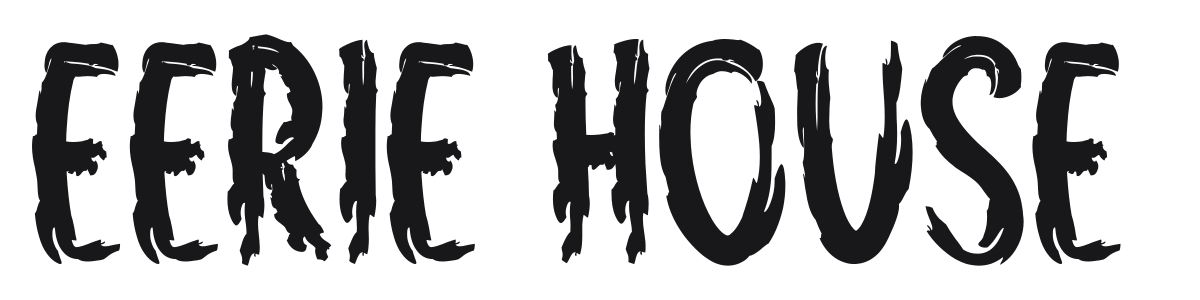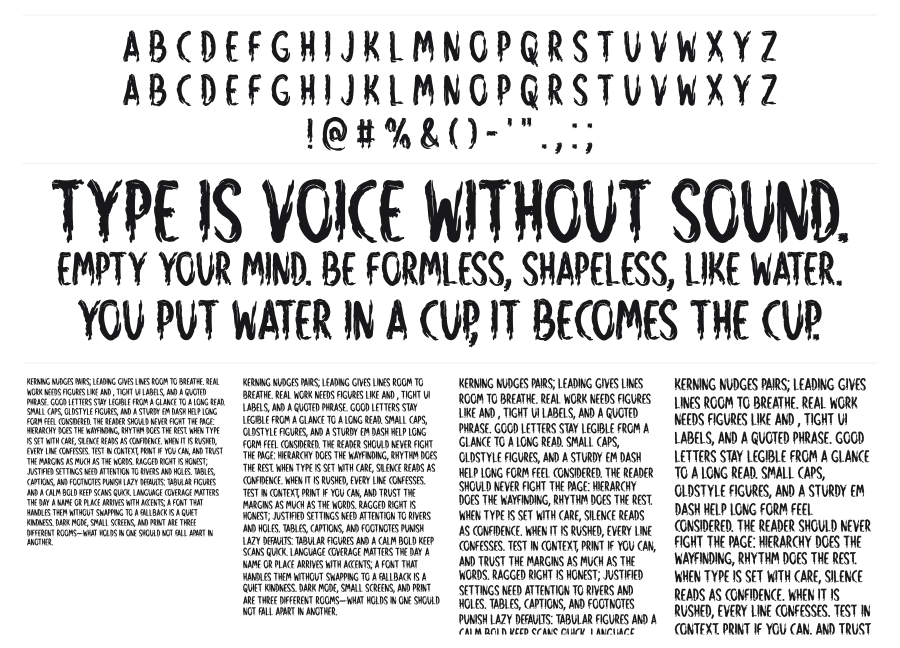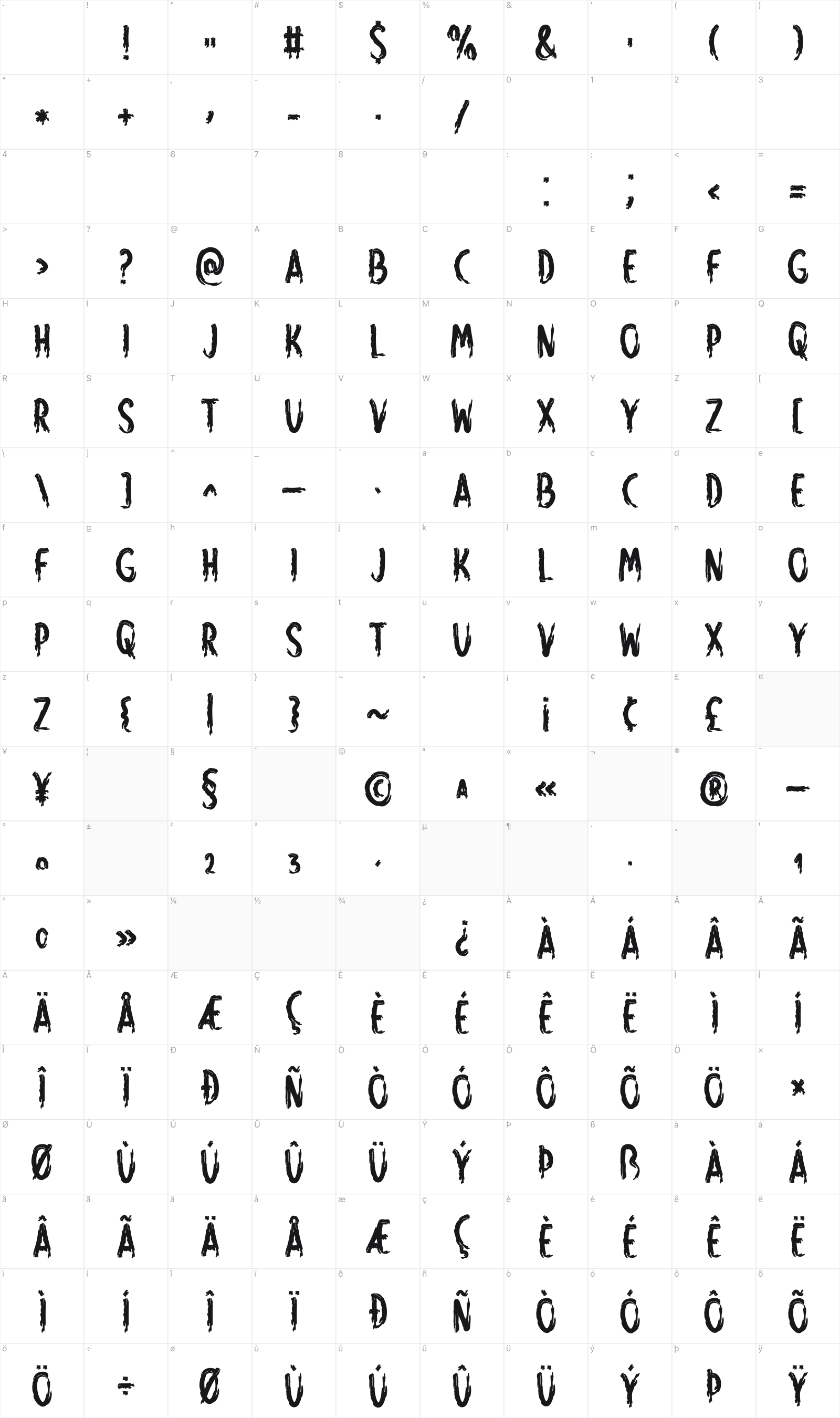
Eerie House
Eerie House is a distressed horror display font with rough, eroded strokes that drip and decay across every character. The jagged textures and irregular edges give it an authentically hand-painted, weathered quality that reads instantly as sinister. Built for horror posters, Halloween branding, and anything that needs to feel genuinely unsettling.